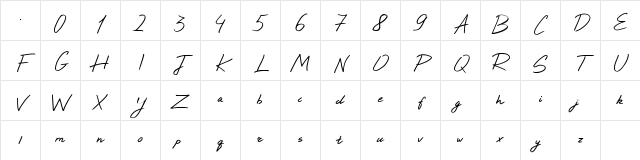
Epic Ride Regular
Foundry: edvardaso
Designer: edvardaso
Design Context for Epic Ride
Epic Ride is a composed and adaptable typeface that performs quietly and consistently across a wide range of design contexts.
Pro Tip: Use Epic Ride in both headline and body roles to test its range before committing to a single application.